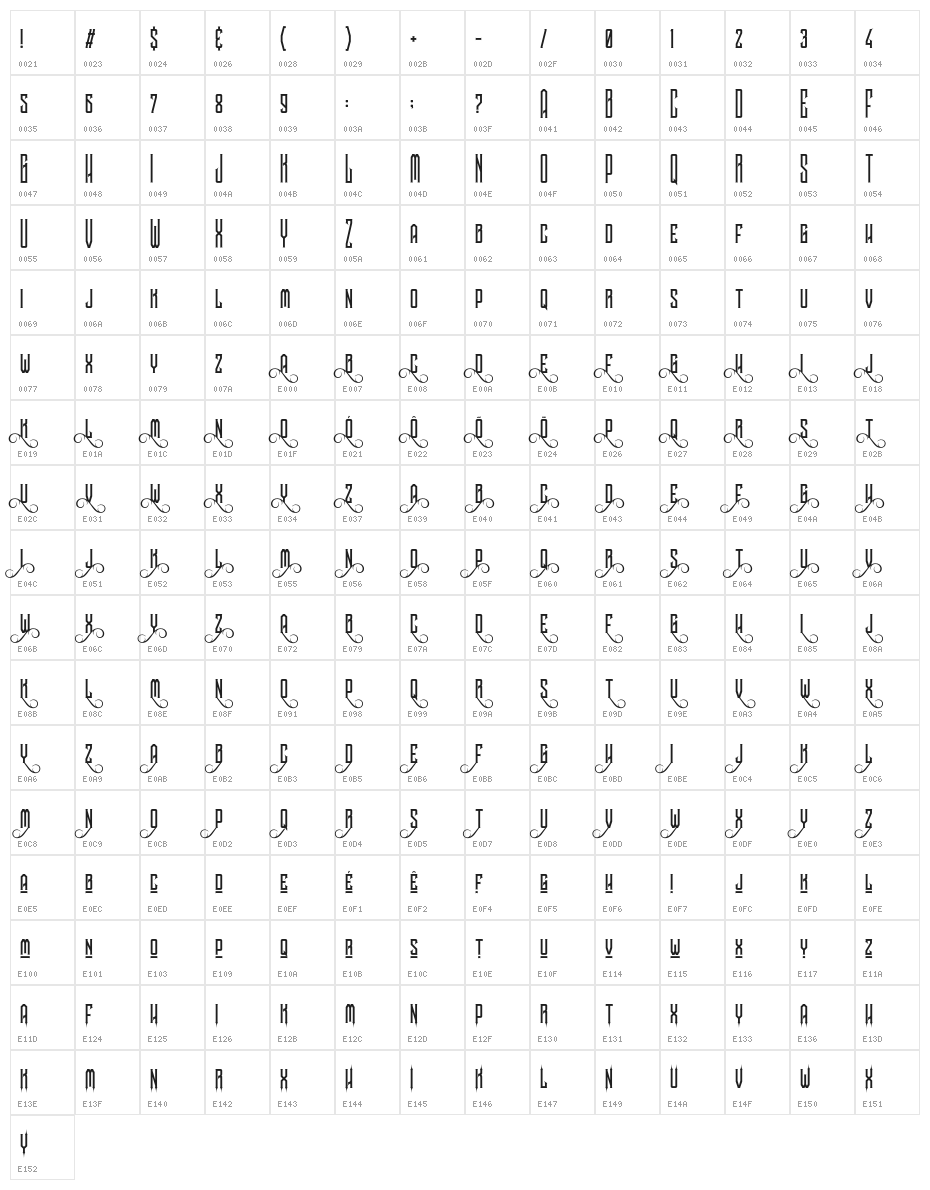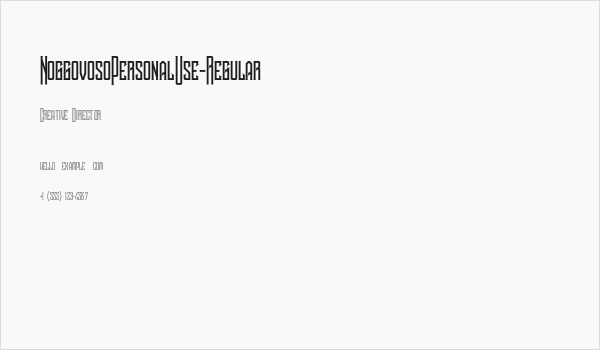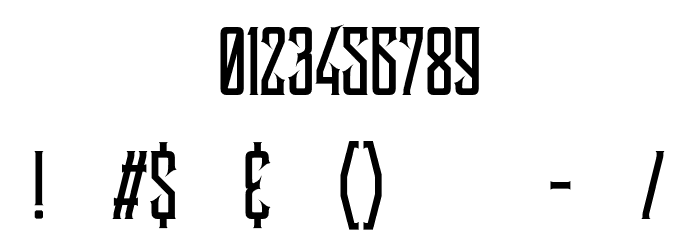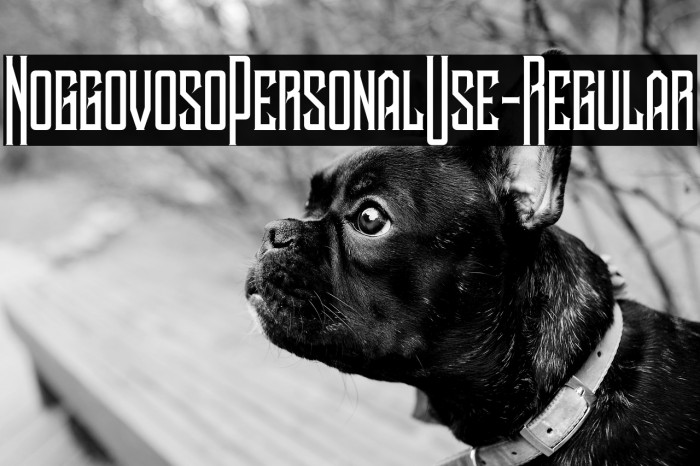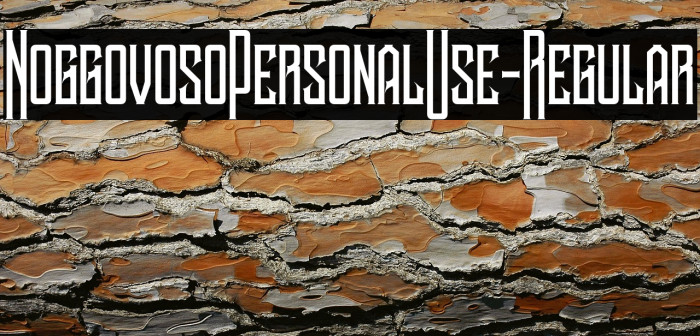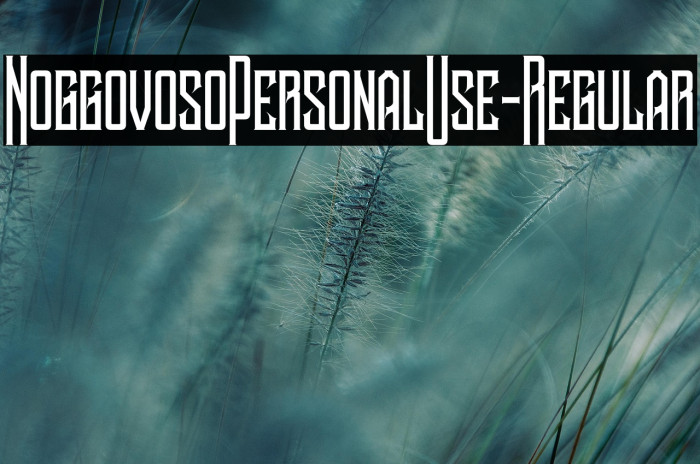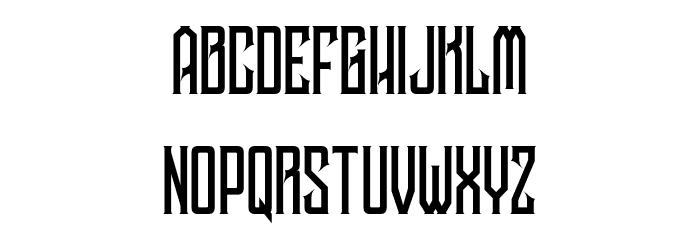
NoggovosoPersonalUse-Regular Font
This font features a bold and striking design with a distinctly modern and geometric style. The characters are tall and narrow, with sharp angles and clean lines that create a sense of precision and sophistication. The uppercase letters are particularly elongated, giving the font a unique and eye-catching appearance. The numbers and special characters maintain the same angular and structured aesthetic, ensuring consistency throughout. This font's design is both contemporary and versatile, making it suitable for a variety of creative applications.
| Proposed Projects | Ideal for branding, posters, headlines, and any project requiring a modern and impactful typeface. |